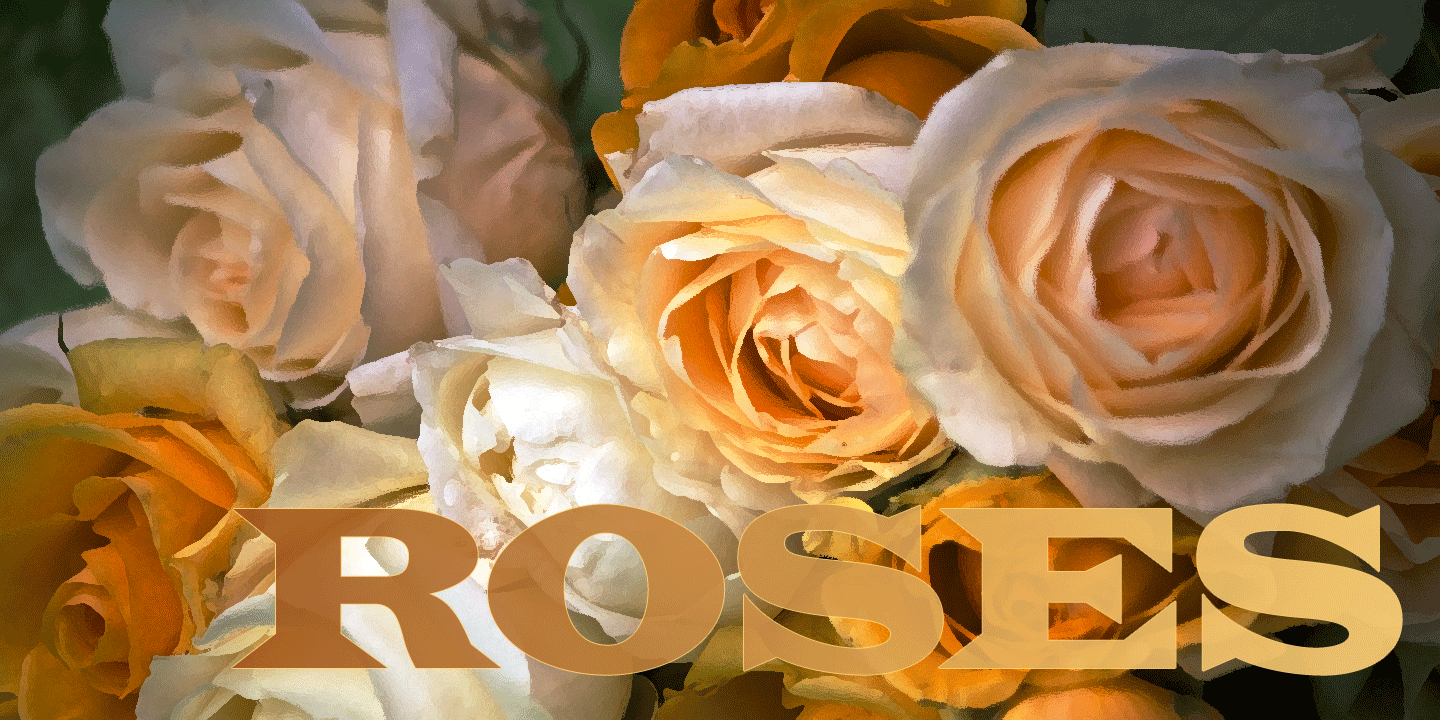
The Latin CT Font is exceptionally versatile for numerous design applications including elegant invitations, luxury branding, high-end packaging, restaurant menus, wine labels, book covers, magazine editorials, cultural event promotions, academic publications, and sophisticated marketing materials. Its classical aesthetic makes it particularly effective for law firms, educational institutions, luxury brands, and cultural organizations seeking to convey tradition, authority, and refined sophistication in their visual communications.
What makes the Latin CT Font extraordinarily exciting is its authentic revival of classical Roman letterforms enhanced with contemporary typographic precision. This serif typeface captures the timeless elegance of ancient inscriptional lettering while incorporating modern refinements that ensure optimal performance across digital and print media. The font's distinctive character emerges from its carefully crafted proportions, elegant curves, and balanced stroke weights that create a sense of historical gravitas and scholarly authority, making it perfect for brands seeking to establish credibility and prestige.
The Latin CT Font family offers a comprehensive collection of weights and styles designed to meet diverse typographic requirements. The collection typically includes light, regular, medium, bold, and black weights, with many versions featuring italic variants that enhance the font's expressive range. Some editions may include small caps, old-style figures, and ornamental characters that provide additional design flexibility for creating sophisticated layouts and traditional typographic treatments.
Typography enthusiasts and professional designers consistently select the Latin CT Font Free Download for its exceptional readability and classical beauty. The font features meticulously adjusted spacing and kerning that ensures comfortable reading experiences in extended text, while its robust construction maintains clarity and elegance across various sizes and applications. The comprehensive character set includes uppercase and lowercase letters, numerals, punctuation marks, and special symbols, along with extensive Latin-based language support for international scholarly and cultural projects.
The Latin CT Font represents the perfect marriage of historical authenticity and modern functionality, combining centuries-old design principles with contemporary digital optimization. Its classical roots provide the gravitas needed for formal communications, while its refined details add sophistication to creative projects. The font's remarkable versatility allows it to work effectively in both traditional academic contexts and modern luxury branding applications, ensuring consistent elegance across books, websites, certificates, and premium packaging materials.